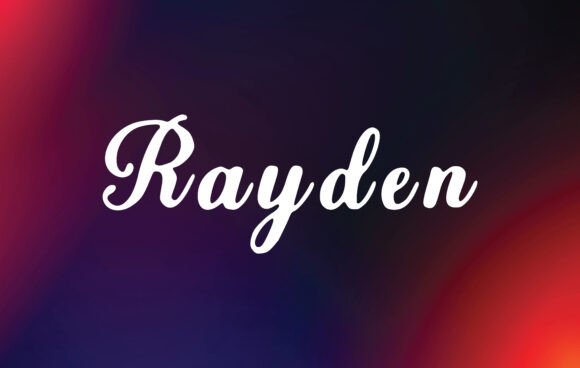
Introducing Rayden Font: Elevate Your Creative Projects with Elegance
Are you looking for a font that can add a touch of elegance and sophistication to your creative projects? Look no further than Rayden Font, a lovely and beautiful handwritten font that has the potential to take your ideas to the highest level. In this article, we’ll explore the features and benefits of Rayden Font, and why it’s the best choice for creating eye-catching logos, branding, and quotes.
What is Rayden Font?
Rayden Font is a unique and stylish handwritten font that is designed to add a personal touch to your creative projects. Its elegant and flowing lines make it perfect for a wide range of applications, from logos and branding to quotes and social media graphics. With its beautiful and distinctive lettering, Rayden Font is sure to make your projects stand out from the crowd.
Key Features of Rayden Font
- Handwritten style: Rayden Font has a beautiful handwritten style that gives it a personal and unique touch.
- Elegant lines: The font features elegant and flowing lines that make it perfect for creating sophisticated and stylish designs.
- Versatile: Rayden Font is versatile and can be used for a wide range of applications, from logos and branding to quotes and social media graphics.
- Easy to read: Despite its elegant style, Rayden Font is easy to read and understand, making it perfect for use in body text and captions.
Why Choose Rayden Font?
So why choose Rayden Font for your creative projects? Here are just a few reasons:
- Adds elegance and sophistication: Rayden Font adds a touch of elegance and sophistication to your designs, making them stand out from the crowd.
- Perfect for creative projects: Whether you’re working on a logo, branding project, or social media graphic, Rayden Font is the perfect choice.
- Unique and distinctive: Rayden Font has a unique and distinctive style that will set your projects apart from others.
Tips for Using Rayden Font
Here are a few tips for using Rayden Font:
- Use it for headings: Rayden Font is perfect for use in headings and titles. Use it to add a touch of elegance and sophistication to your designs.
- Experiment with colors: Rayden Font looks great in a variety of colors. Experiment with different colors to find the one that works best for your design.
- Pair it with other fonts: Rayden Font can be paired with other fonts to create a unique and interesting design.
- Use it for branding: Rayden Font is perfect for use in branding projects. Use it to create a consistent and recognizable brand identity.
Rayden Font for Logos and Branding
Rayden Font is perfect for use in logos and branding projects. Its elegant and sophisticated style makes it ideal for creating a professional and recognizable brand identity. Here are a few ways you can use Rayden Font for logos and branding:
- Logos: Use Rayden Font to create a unique and memorable logo that reflects your brand’s values and personality.
- Business cards: Use Rayden Font on your business cards to add a touch of elegance and sophistication.
- Brochures and flyers: Use Rayden Font in your brochures and flyers to create a consistent and recognizable brand identity.
- Social media graphics: Use Rayden Font in your social media graphics to add a touch of elegance and sophistication to your online presence.
Rayden Font for Quotes and Social Media Graphics
Rayden Font is also perfect for use in quotes and social media graphics. Its elegant and sophisticated style makes it ideal for creating inspiring and shareable content. Here are a few ways you can use Rayden Font for quotes and social media graphics:
- Quotes: Use Rayden Font to create inspiring and shareable quotes that reflect your brand’s values and personality.
- Social media graphics: Use Rayden Font in your social media graphics to add a touch of elegance and sophistication to your online presence.
- Instagram posts: Use Rayden Font in your Instagram posts to create visually appealing and engaging content.
- Facebook posts: Use Rayden Font in your Facebook posts to add a touch of elegance and sophistication to your social media presence.
In conclusion, Rayden Font is a beautiful and elegant handwritten font that is perfect for creative projects. Its unique and distinctive style makes it ideal for adding a touch of sophistication and elegance to your designs. Whether you’re working on a logo, branding project, or social media graphic, Rayden Font is the perfect choice. So why wait? Download Rayden Font today and take your creative projects to the next level.